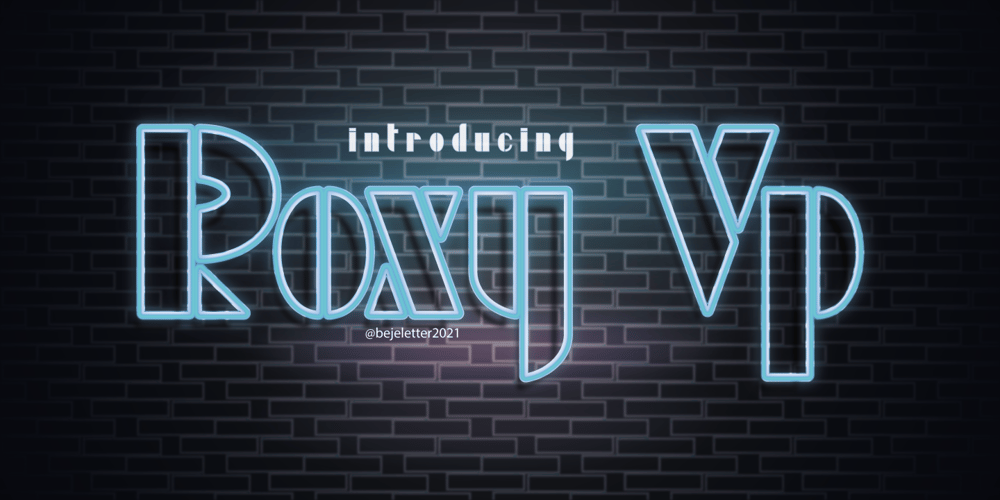
Roxy Vp Font Family was designed by Bejeletter and published by Bejeletter. Roxy Vp contains 1 styles and family package options. Roxy Vp comes in bold, its a cool, robotic and thick lettered display font. This font is ideal for writing web designs, business cards, or pretty much anything else that requires a modern and techno touch.